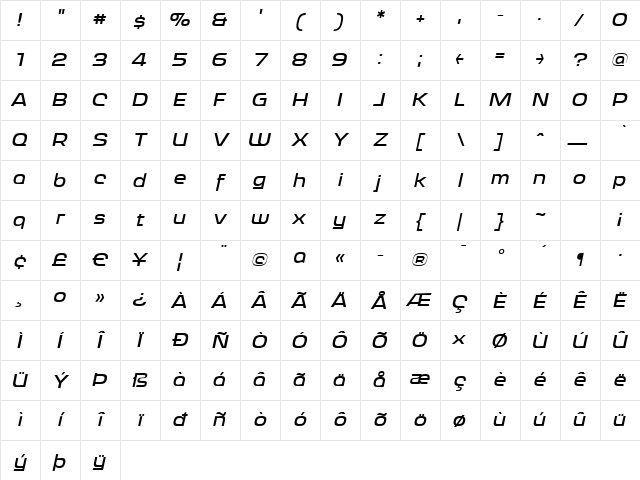
Ritafurey Medium Italic
Design Context for Ritafurey Medium
Ritafurey Medium is a composed and adaptable typeface that performs quietly and consistently across a wide range of design contexts. The slanted form adds forward momentum and visual energy.
Pro Tip: Use Ritafurey Medium for emphasis, pull quotes, and subheadings where its slanted energy can add rhythm to the layout.